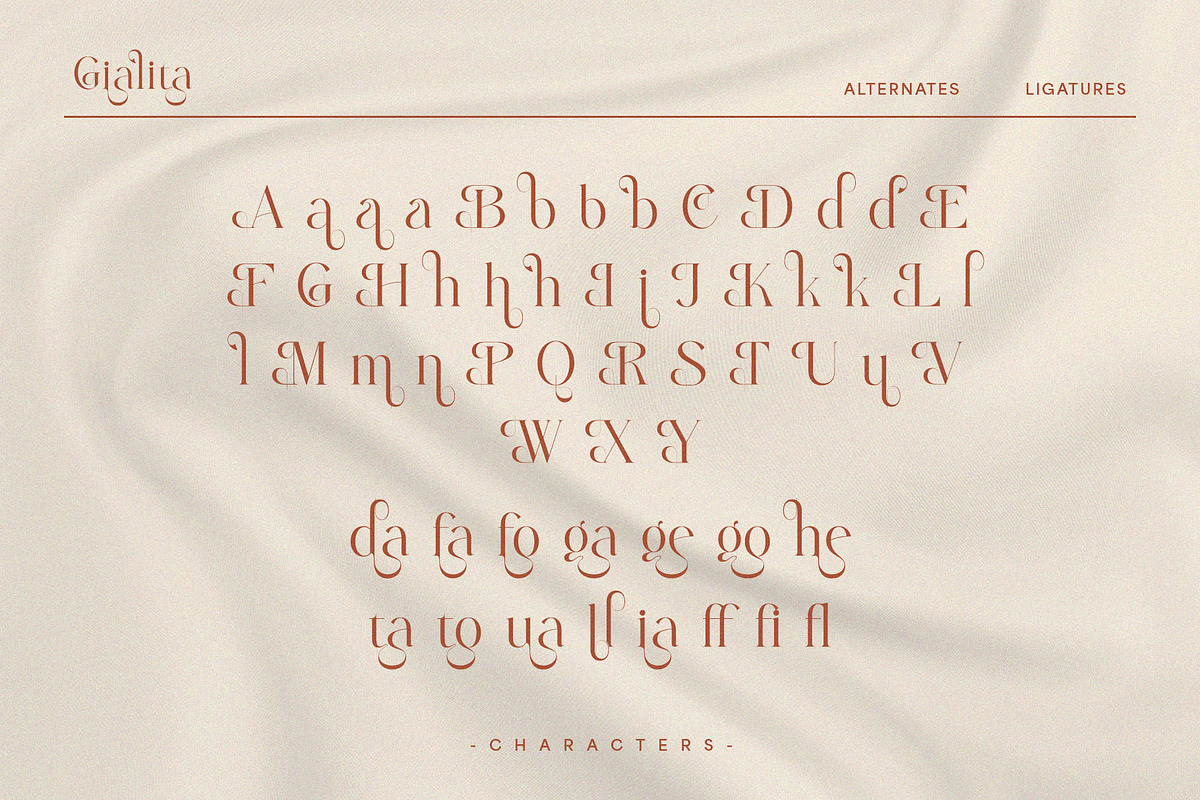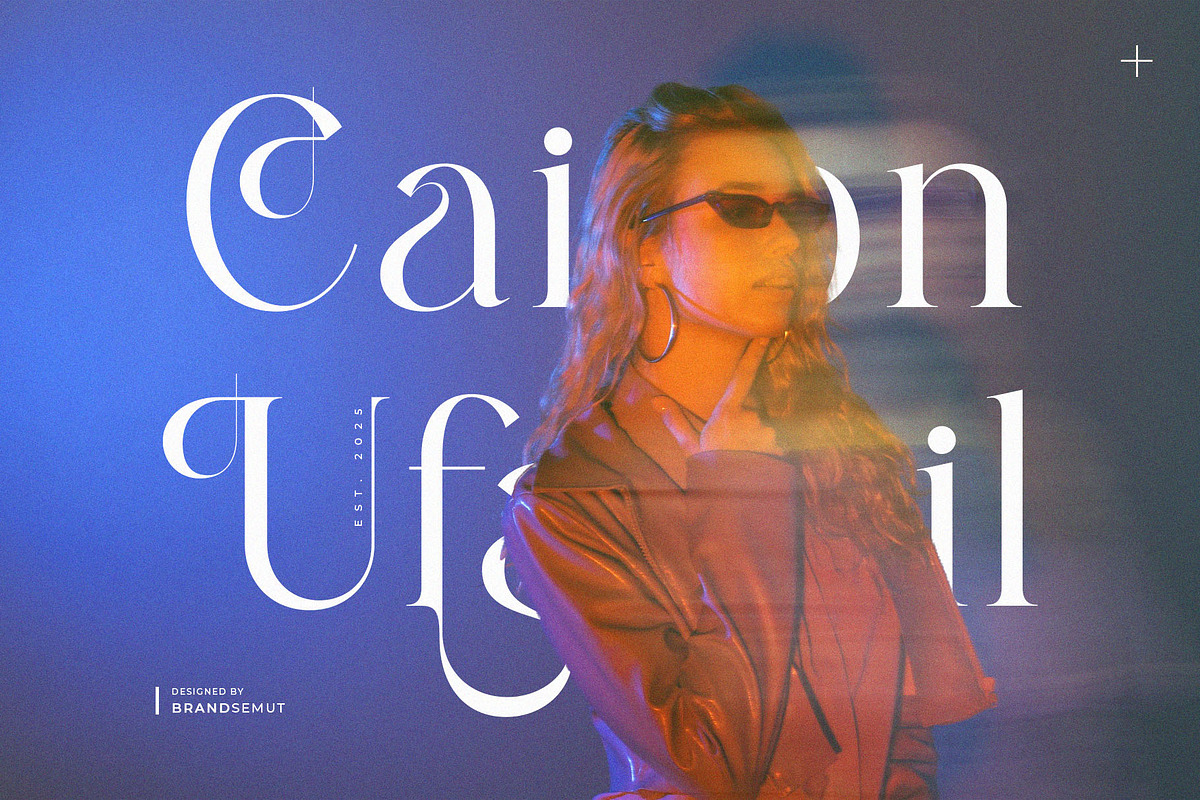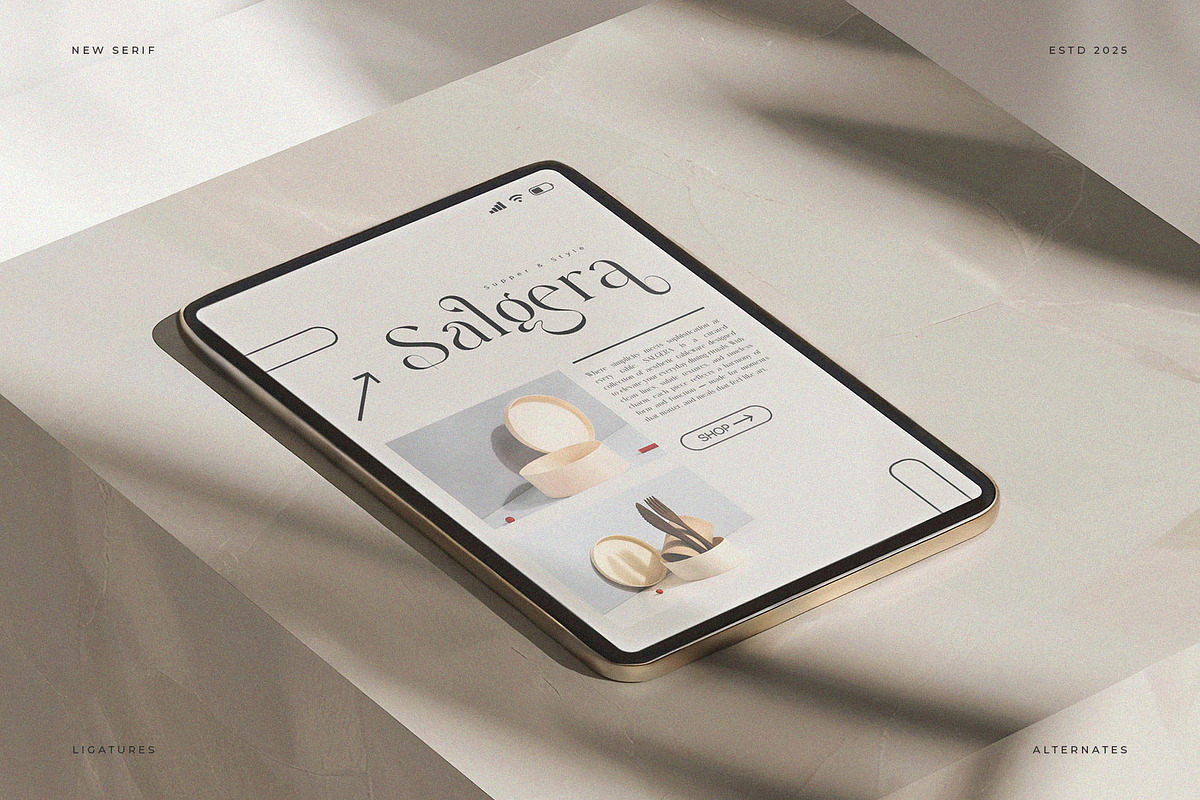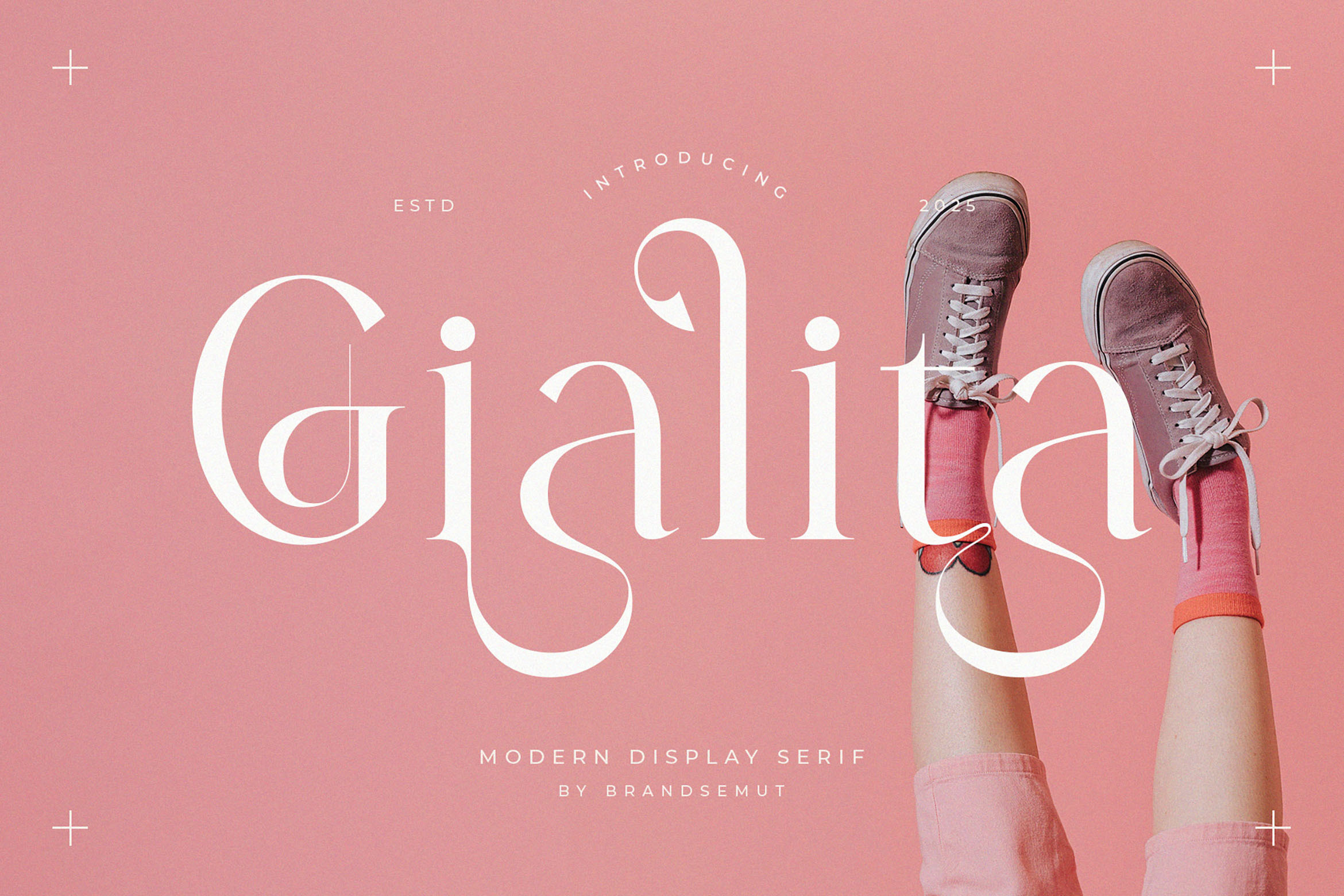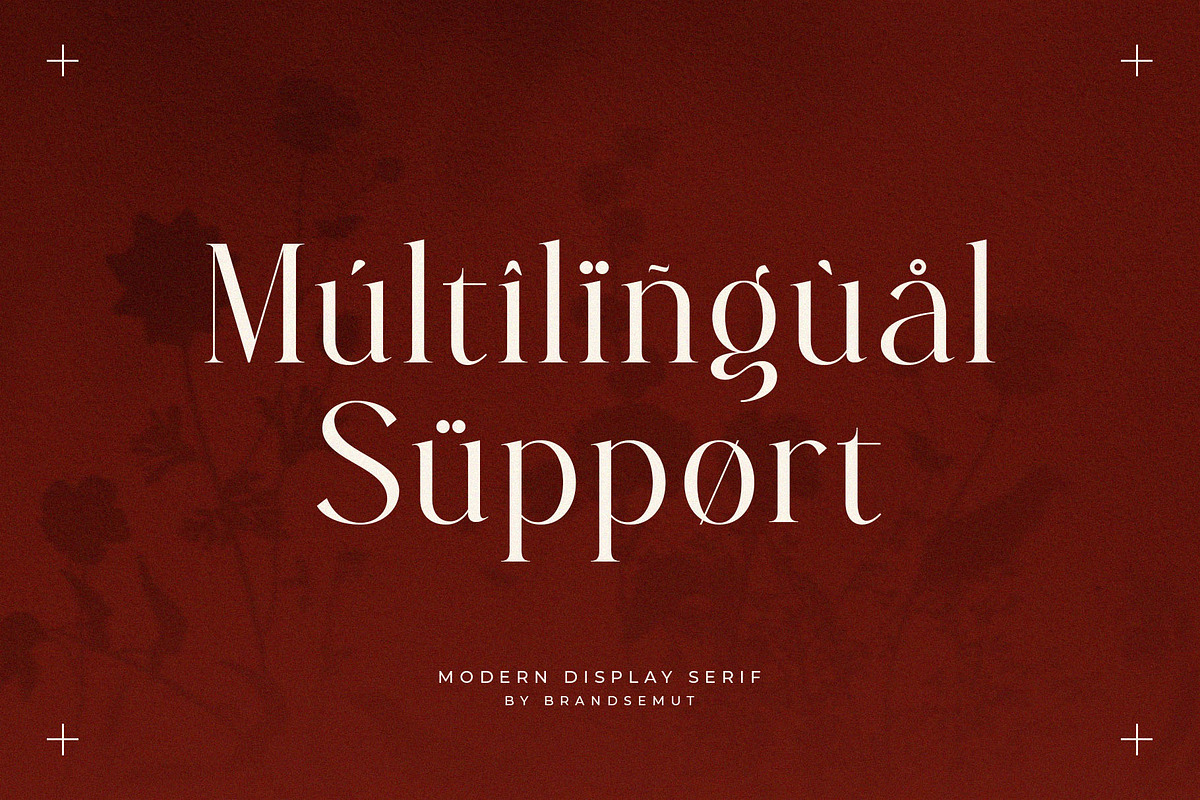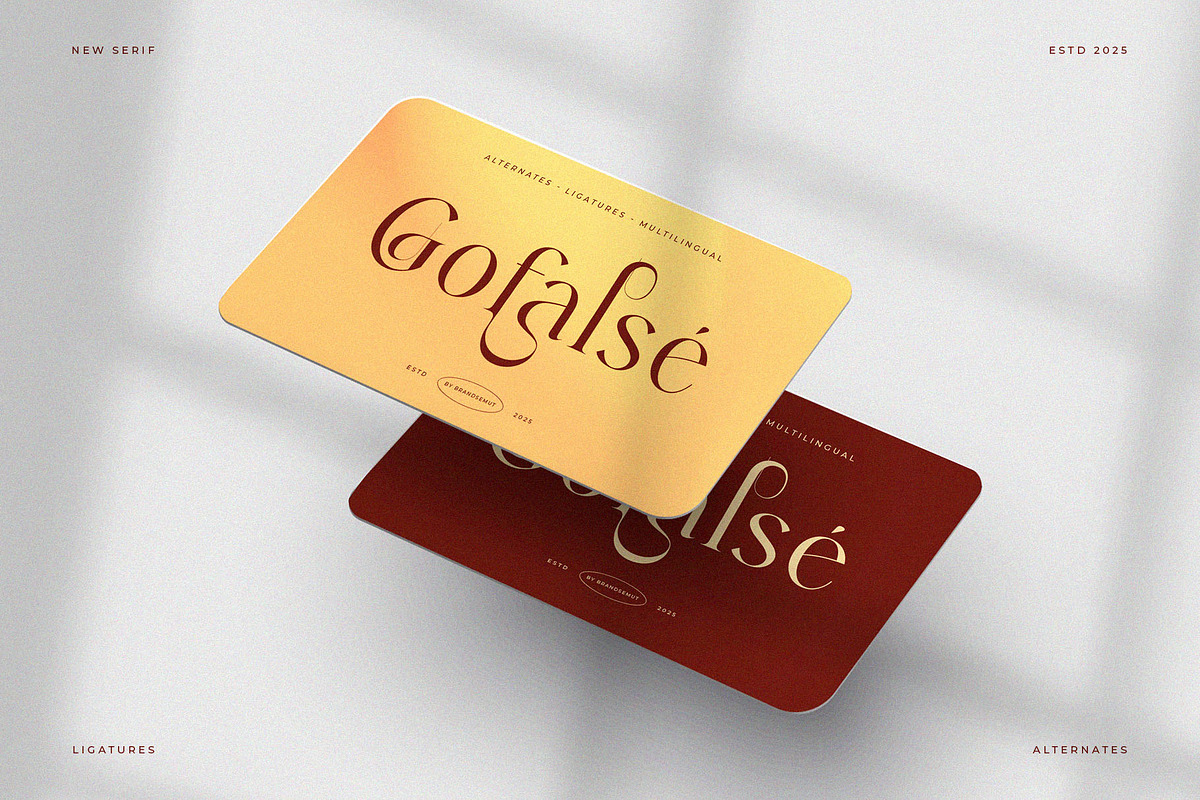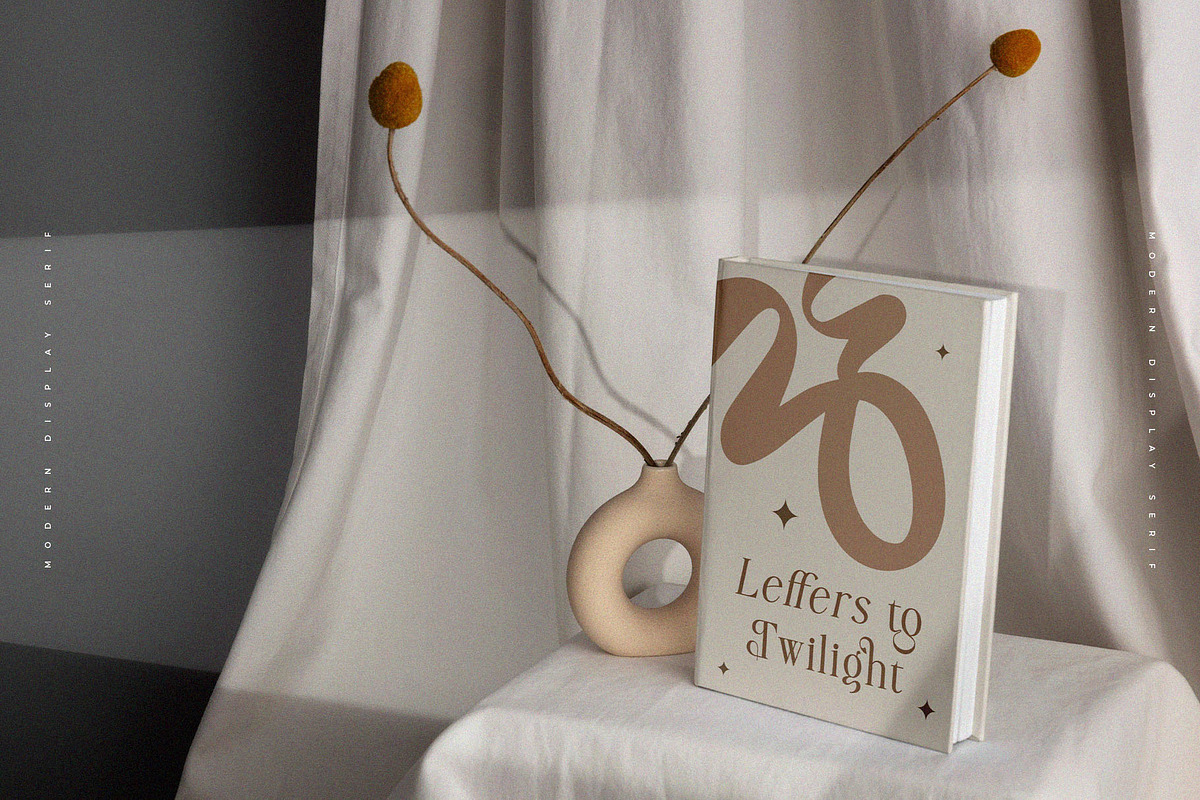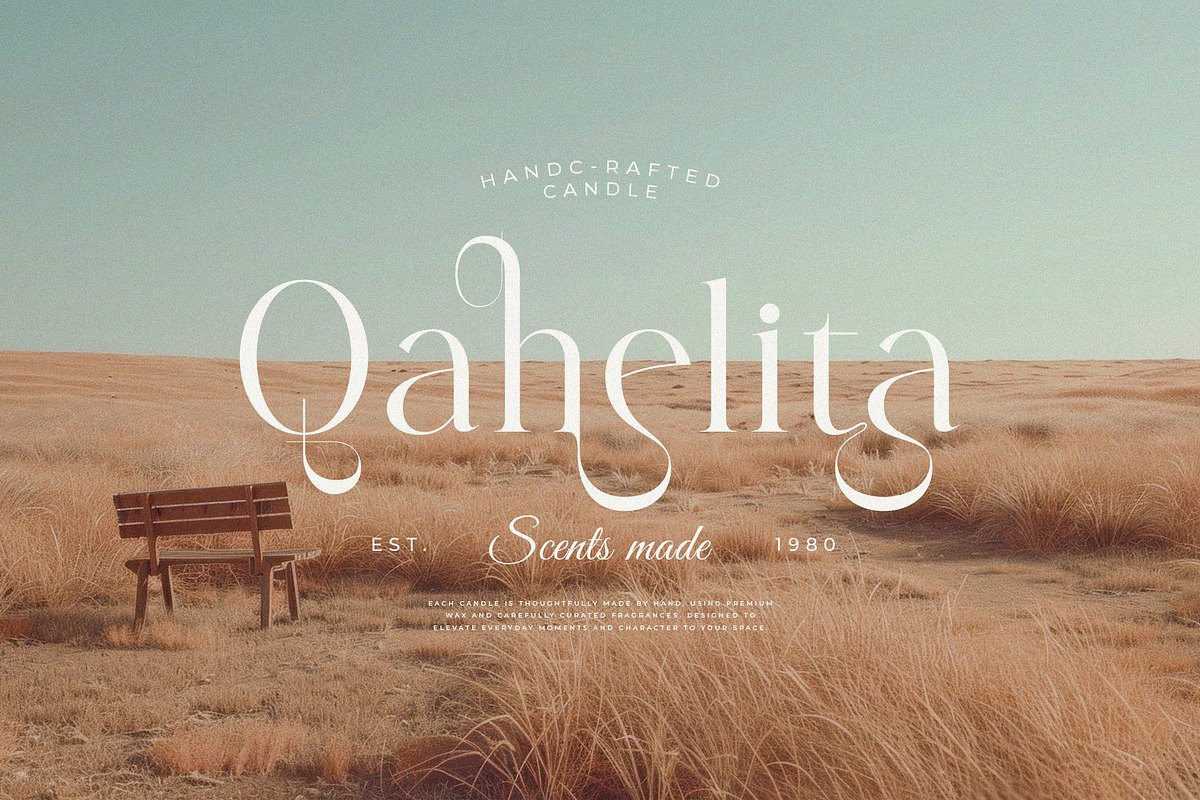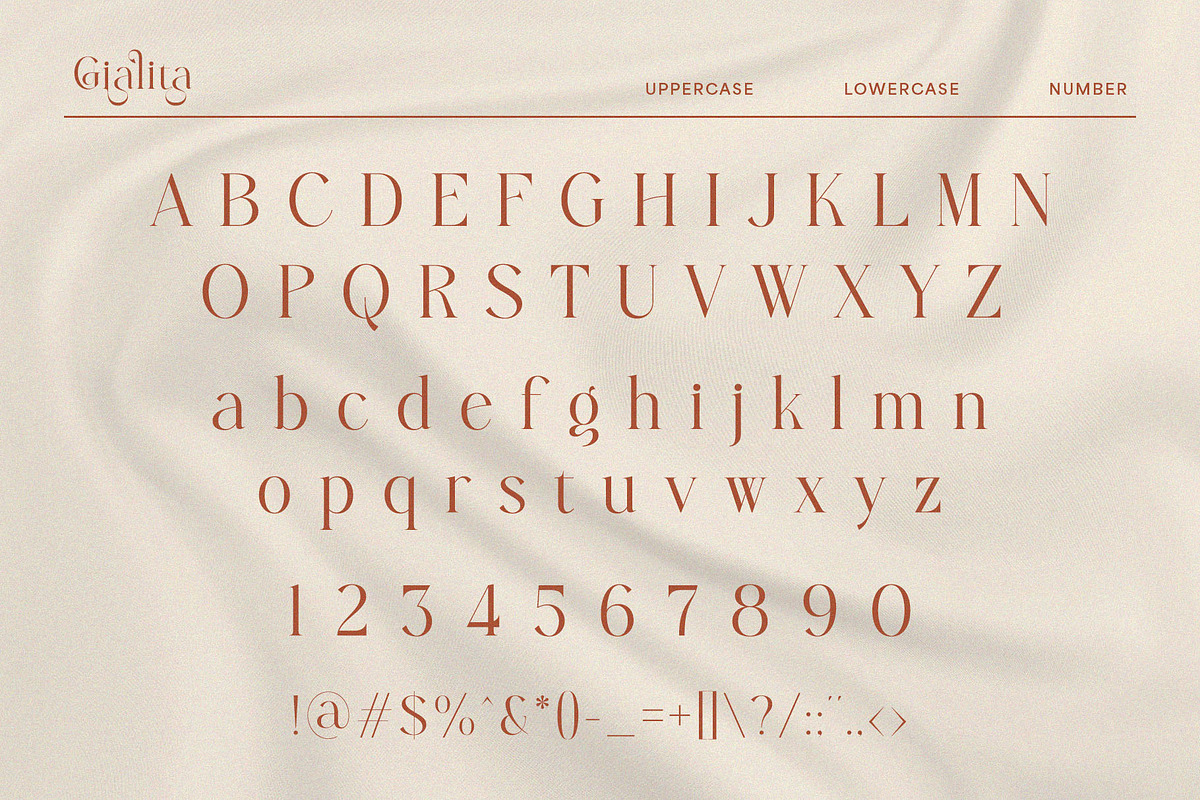
Gialita – Stylish Modern Serif Font
Gialita – Stylish Modern Display Serif Font with Whimsical Elegance & Unique Ligatures
Gialita is a stylish and modern display serif font that blends graceful curves with a playful yet elegant presence. This typeface is meticulously designed to deliver a unique typographic personality through artistic strokes, high contrast lines, and fluid ligatures. The subtle sophistication and contemporary charm of Gialita make it a standout choice for modern branding, creative headlines, and editorial layouts.
Crafted for designers who appreciate aesthetics and precision, Gialita excels in both digital and print contexts. Its decorative serifs, ligature alternates, and sophisticated details ensure that your designs remain expressive while maintaining elegance and readability.
- Style: Modern Display Serif
- Characters: Uppercase & Lowercase
- Ligatures & Alternates Included
- Perfect For: Logo design, branding, fashion magazine, social media content, editorial titles, luxury packaging, creative posters, and wedding invitations
Whether you're creating a trendy campaign or a chic logo, Gialita elevates your work with confidence and charm. Its high-fashion inspired structure and whimsical feminine flair make it an excellent addition to any creative font collection.